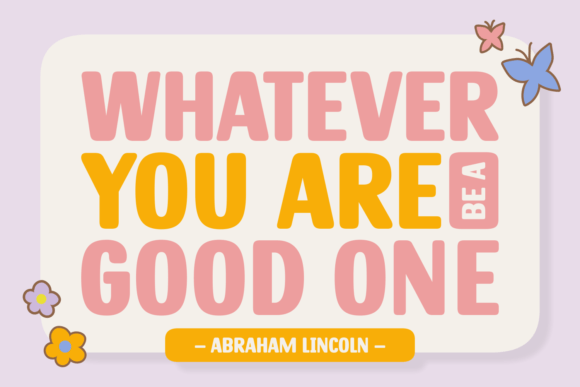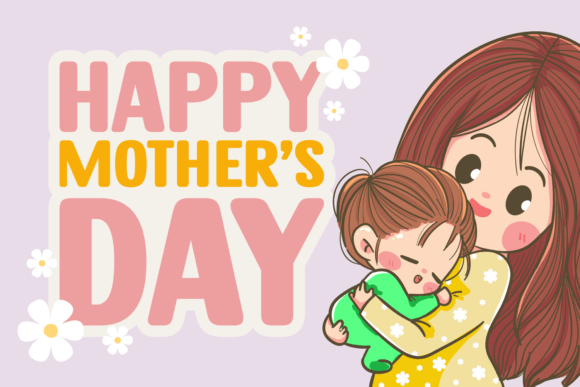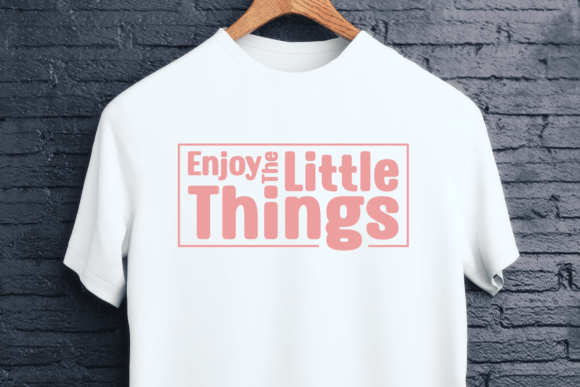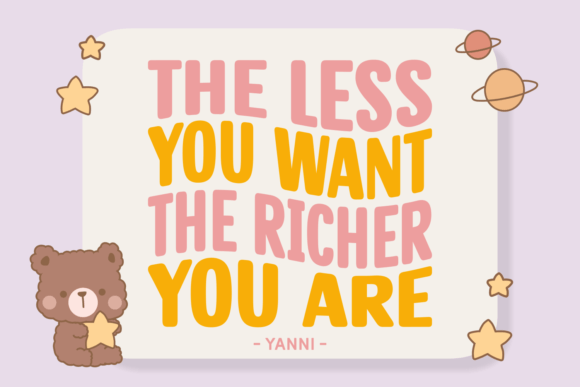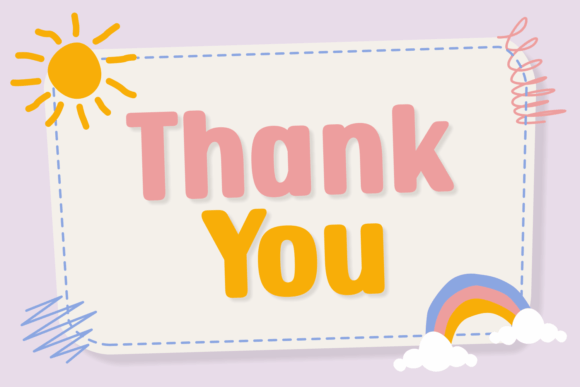
Introducing Always Enough Font: The Fun and Playful Display Font for Kids and School Themes
Are you a designer, crafter, or educator looking for a font that can add a touch of fun and playfulness to your projects? Look no further than Always Enough Font! This uniquely designed display font is perfect for kids or school themes and can be used for a wide range of creative projects. In this article, we’ll explore the features and benefits of Always Enough Font and show you how it can elevate your designs and make them stand out.
What is Always Enough Font?
Always Enough Font is a display font that is specifically designed to be fun, playful, and engaging. Its unique design makes it perfect for kids or school themes, and it’s ideal for use in a variety of projects, including crafting, restaurant menus, digital designing, presentations, and greeting card making. The font’s playful and cheerful style is sure to capture the attention of your audience and add a touch of whimsy to your designs.
Features of Always Enough Font
- Uniquely designed: Always Enough Font has a one-of-a-kind design that sets it apart from other fonts. Its unique style is sure to make your projects stand out and grab attention.
- Fun and playful: This font is designed to be fun and playful, making it perfect for kids or school themes. It’s ideal for use in projects that require a lighthearted and cheerful touch.
- Versatile: Always Enough Font can be used for a wide range of projects, including crafting, restaurant menus, digital designing, presentations, and greeting card making.
- Easily matched to a large set of projects: This font can be easily paired with a variety of other fonts and design elements, making it easy to incorporate into your existing design workflow.
Benefits of Using Always Enough Font
So why should you choose Always Enough Font for your next project? Here are just a few benefits of using this fun and playful display font:
- Adds a touch of whimsy: Always Enough Font adds a touch of whimsy and playfulness to your designs, making them more engaging and fun to look at.
- Perfect for kids or school themes: This font is specifically designed for kids or school themes, making it ideal for use in educational materials, children’s books, and other projects that require a fun and playful touch.
- Increases creativity: Always Enough Font’s unique design and playful style can help inspire creativity and add a fresh perspective to your designs.
Project Ideas for Always Enough Font
So what can you create with Always Enough Font? The possibilities are endless! Here are a few project ideas to get you started:
- Crafting projects: Use Always Enough Font to add a touch of whimsy to your crafting projects, such as scrapbooking, card making, and paper crafting.
- Restaurant menus: Add a playful touch to your restaurant menus with Always Enough Font. It’s perfect for kid-friendly menus or for adding a fun and casual vibe to your restaurant’s branding.
- Digital designing: Use Always Enough Font in your digital designs, such as social media graphics, blog posts, and website headers.
- Presentations: Add a touch of fun and playfulness to your presentations with Always Enough Font. It’s perfect for educational presentations, sales pitches, and more.
- Greeting card making: Use Always Enough Font to create fun and playful greeting cards for kids or adults.
| Author | Darman (7NTypes) |
Always Enough Font is a fun and playful display font that’s perfect for kids or school themes. Its unique design and versatile style make it ideal for use in a wide range of projects, from crafting and restaurant menus to digital designing and presentations. With its easy-to-use design and endless possibilities, Always Enough Font is sure to become a favorite in your design toolkit. So why wait? Download Always Enough Font today and start adding a touch of whimsy to your designs!